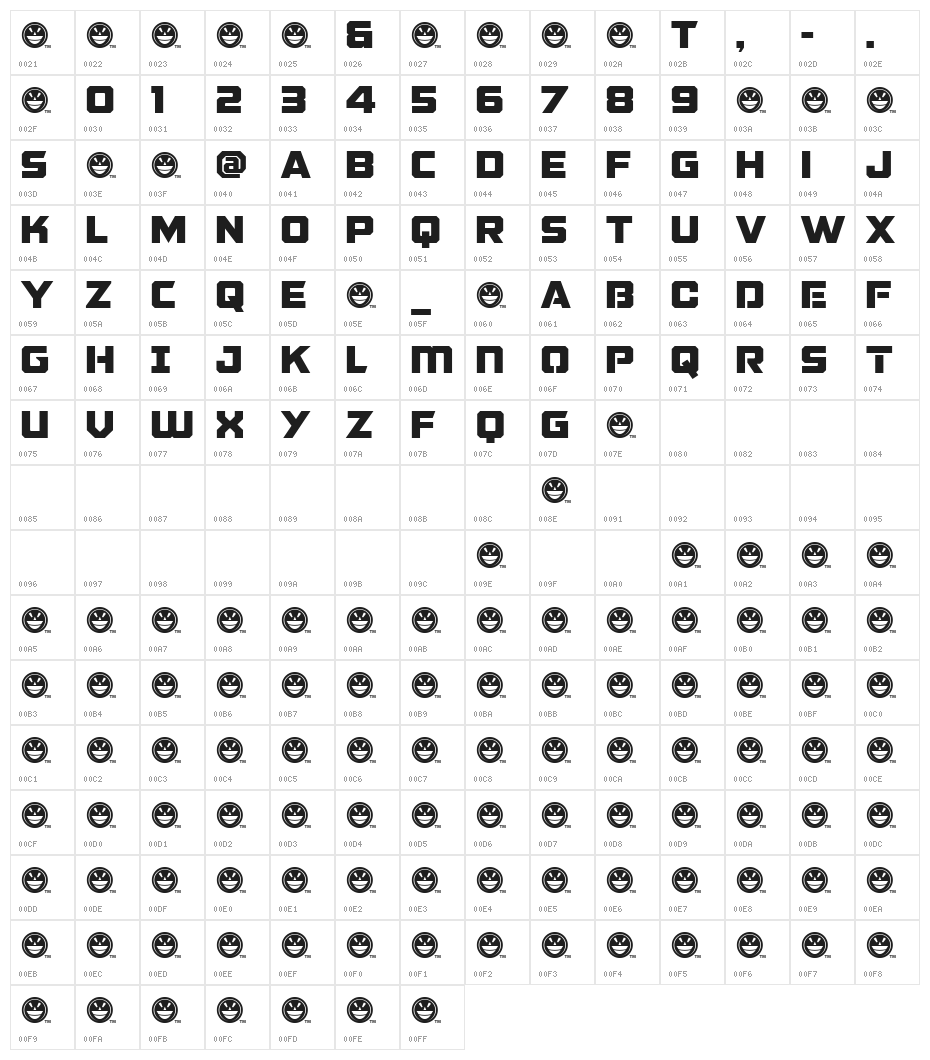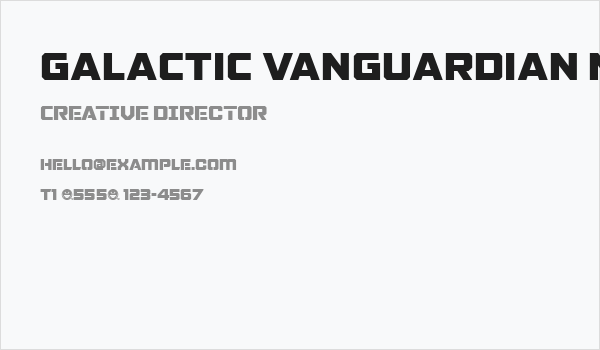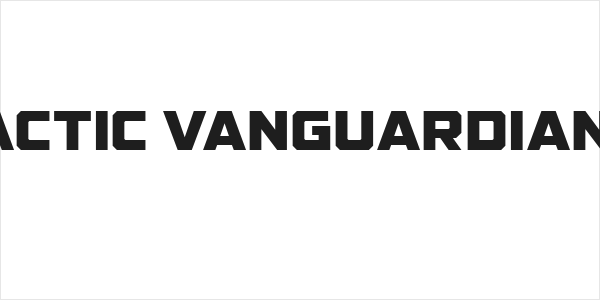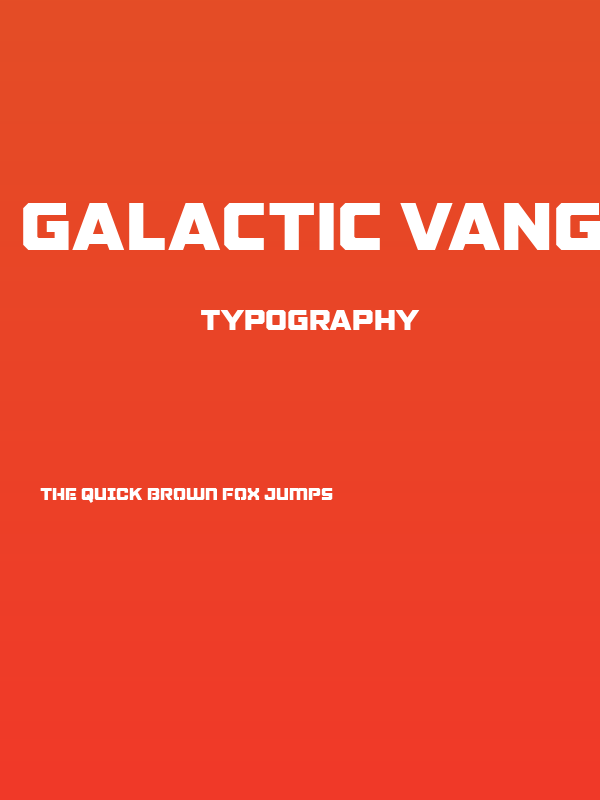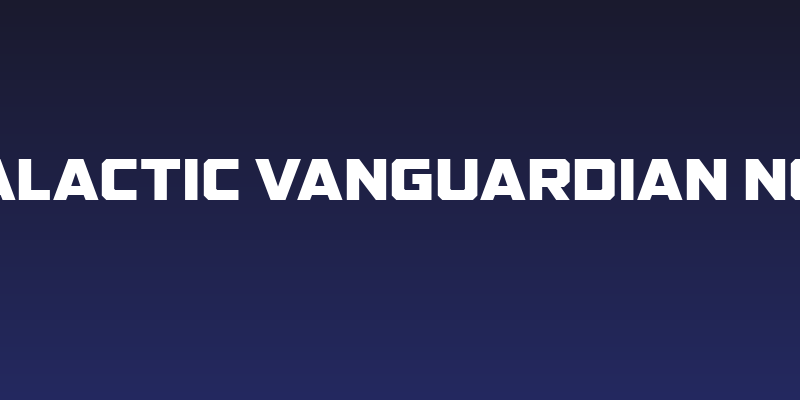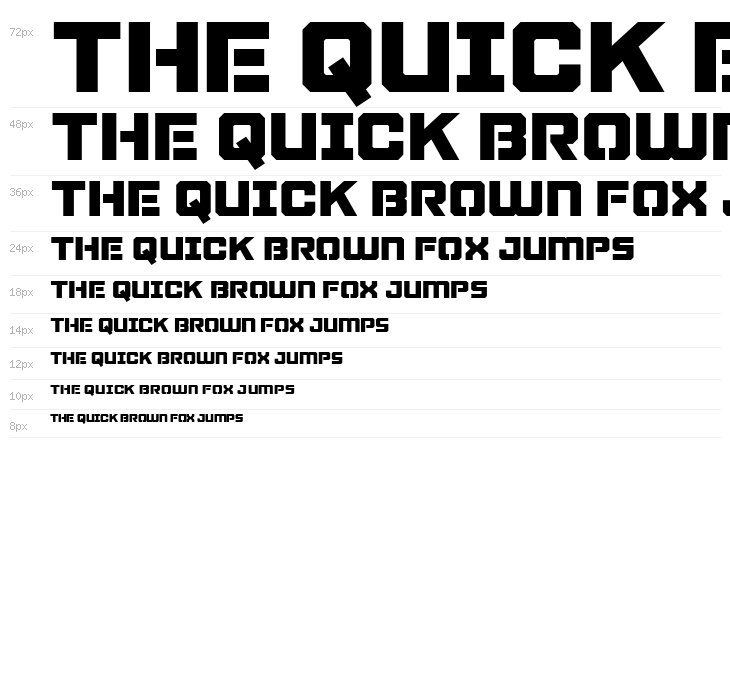
GALACTIC VANGUARDIAN NCV Font
GALACTIC VANGUARDIAN NCV Description
This font features a bold, futuristic design with strong geometric shapes and a solid, blocky appearance. The uppercase letters are uniform in height, with sharp angles and a consistent thickness throughout. The lowercase letters maintain the same boldness, offering a cohesive look across both cases. Numbers are equally bold, with a clear, easy-to-read style that matches the overall aesthetic. Special characters are designed to complement the font's robust and modern feel. This font is ideal for projects that require a strong, impactful presence.
| Proposed Projects | Ideal for sci-fi themed designs, video game titles, movie posters, and branding that requires a strong, modern impact. |